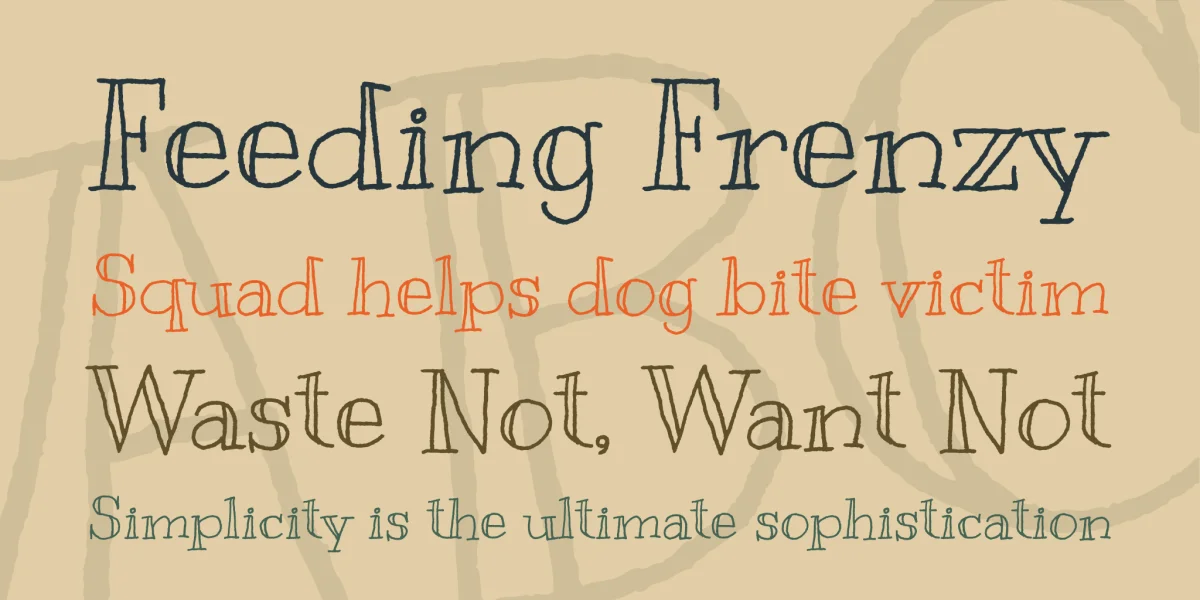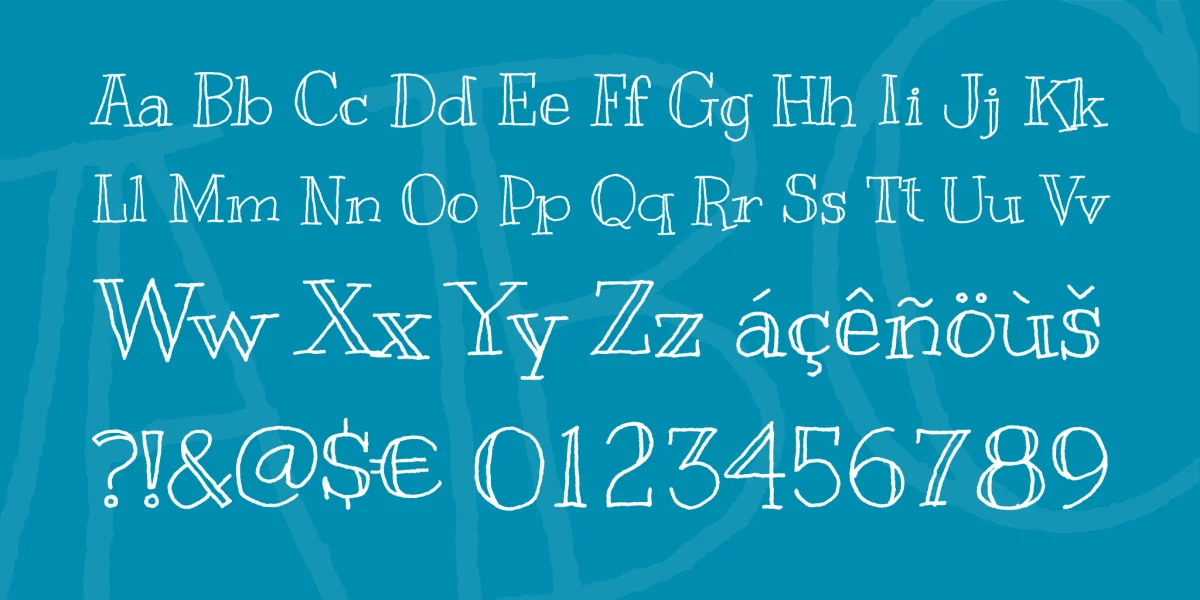
Get happy? No! Get Kranky! Another hand-crafted, fun-filled font guaranteed to put a smile on your face. So grab it now and put on a big old I-got-it-for-free grin. But before your face gets stuck like that be sure to check out all the other inappropriately named fonts by Squid.